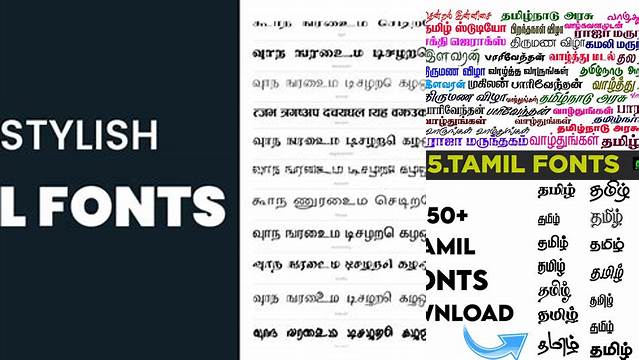
Tamil Fonts TTF: Free Download For Stylish Typography
Hey guys! Are you looking to add some flair to your designs or documents with beautiful Tamil fonts? You've come to the right place! In this article, we'll dive deep into the world of Tamil fonts, specifically focusing on TTF (TrueType Font) files and where you can download them in a convenient ZIP format. We’ll cover everything from the basics of Tamil typography to finding the perfect font for your project. Let's get started!
Tamil Font Styles: An Overview
First, let's talk about Tamil font styles. The Tamil script is rich and diverse, with various styles that reflect different moods and purposes. Whether you're working on a formal document, a creative design, or a casual project, understanding the different styles will help you choose the right font. So, when you're looking for Tamil style fonts ttf zip download, you're essentially looking for a wide variety of options to suit your needs. Let's break it down!
Finding the Best Tamil Fonts for Your Needs
Finding the best Tamil fonts can be a bit of a treasure hunt, but it's totally worth it when you stumble upon the perfect typeface. There are tons of resources out there, but navigating them can be tricky. We'll explore some of the top websites and repositories where you can find high-quality Tamil fonts in TTF format, often available in ZIP archives for easy downloading. Remember, the best Tamil fonts are those that not only look great but also serve your specific purpose.
Free Tamil Fonts vs. Premium Options
When it comes to Tamil style fonts ttf zip download, you'll encounter both free and premium options. Free fonts are fantastic for personal projects or when you're on a budget. However, premium fonts often offer more refined designs, extensive character sets, and better support. We'll weigh the pros and cons of each to help you make an informed decision. Choosing between free Tamil fonts and premium options depends largely on your project's requirements and budget.
Understanding TTF Font Format
The TTF (TrueType Font) format is a standard in the world of typography, and it's crucial when you're dealing with Tamil style fonts ttf zip download. TTF fonts are scalable, meaning they look crisp and clear at any size. This is super important for both print and digital media. Understanding the TTF format ensures you're getting a font that's compatible with most systems and applications. So, knowing about TTF font format is key to a smooth experience.
Why Choose Tamil TTF Fonts?
Why specifically choose Tamil TTF fonts? Well, TTF is a widely supported format, which means you can use these fonts on various platforms, including Windows, macOS, and Linux. Plus, TTF fonts maintain their quality regardless of the size, making them ideal for everything from small text to large headlines. This versatility is a major advantage when you download Tamil style fonts ttf zip.
Exploring Popular Tamil Font Families
There are some popular Tamil font families that are widely used and loved for their aesthetic appeal and readability. Knowing these font families can be a great starting point when you're searching for Tamil style fonts ttf zip download. We'll introduce you to some of the classics and explain what makes them so popular.
The Importance of Readability in Tamil Typography
Readability is key in any typography, and it's especially important when working with Tamil scripts. When you download Tamil style fonts ttf zip, make sure to choose fonts that are clear and easy to read, especially for body text. Importance of readability in Tamil typography cannot be overstated – a beautiful font is useless if it's hard to read.
Using Tamil Fonts in Graphic Design Projects
If you're a graphic designer, you know how crucial fonts are to your projects. Using Tamil fonts in graphic design projects can add a unique cultural touch to your work. When you download Tamil style fonts ttf zip, you're opening up a world of creative possibilities. We'll discuss how to effectively incorporate Tamil fonts into your designs.
Common Mistakes to Avoid When Using Tamil Fonts
Finally, let’s cover some common mistakes to avoid when using Tamil fonts. From readability issues to licensing violations, we’ll help you steer clear of pitfalls. Avoiding these errors ensures your projects shine, especially after you download Tamil style fonts ttf zip.